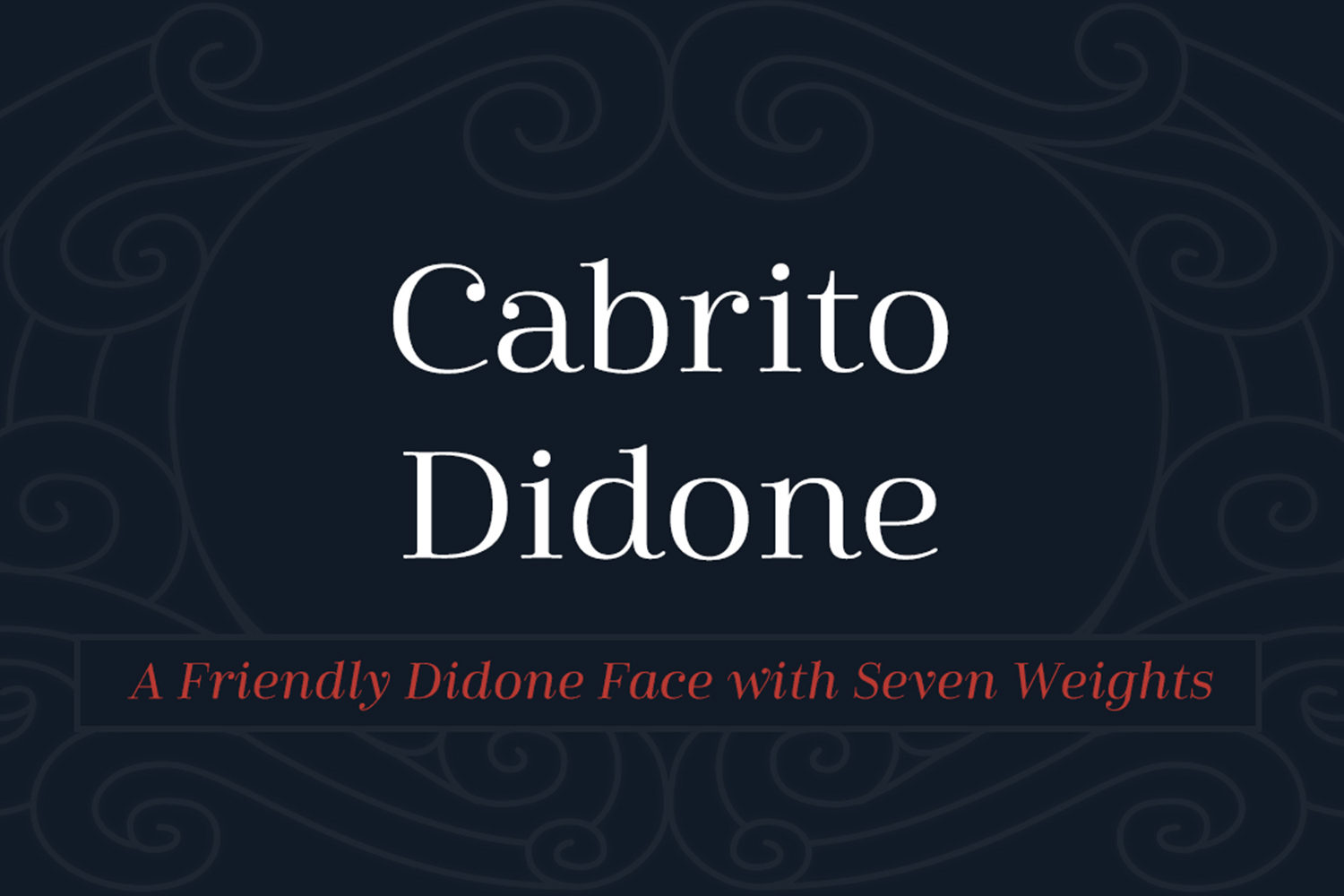
Cabrito Didone is developed by Insigne Design and is distributed under the Insigne EULA License. Its font give you plenty of easy-going, highly readable options to work with as you craft your design.